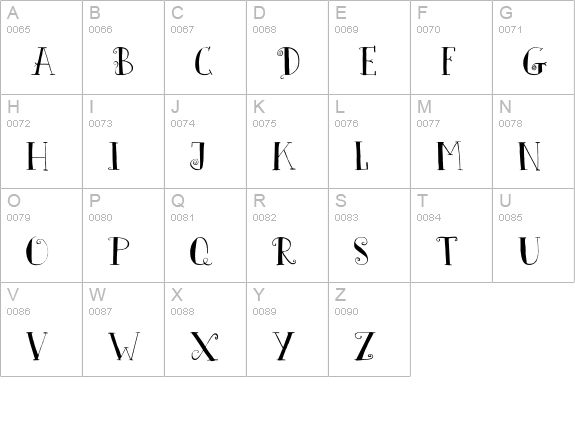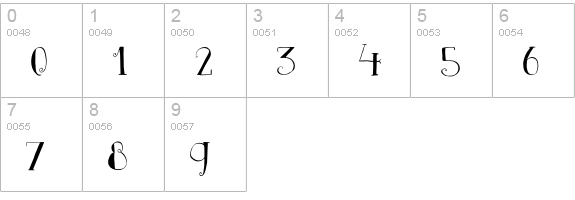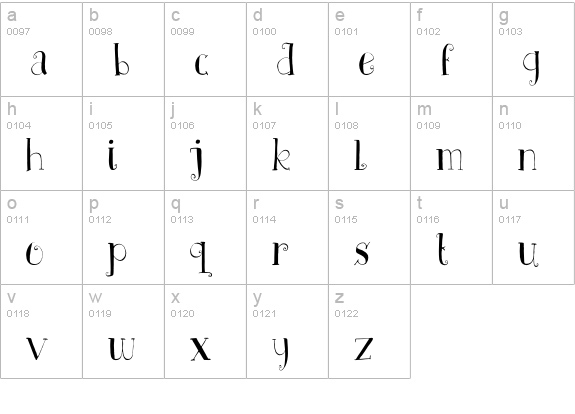
DK Father Frost Font Details
Introducing DK Father Frost font, a whimsical and enchanting typeface that will transport you to a magical winter wonderland. With its delicate curves and intricate details, this font captures the essence of the beloved folk tale character, Father Frost. DK Father Frost font is perfect for adding a touch of charm and elegance to your designs. Whether you're creating holiday-themed invitations, greeting cards, or even branding materials for a cozy winter retreat, this font will bring warmth and joy to your projects. What makes DK Father Frost font even more special is that it is freely available to download at FontsMarket.com. Yes, you read that right! You can easily access this beautiful font without any cost. Now, you can embrace the spirit of giving and share your creativity with others, all while enjoying the beauty and versatility of DK Father Frost font. So, go ahead and download DK Father Frost font today. Let its captivating style and graceful lines inspire you to create stunning designs that will leave a lasting impression. Spread the magic of the holiday season with this must-have font, and watch as your projects come to life with a touch of whimsy and enchantment.